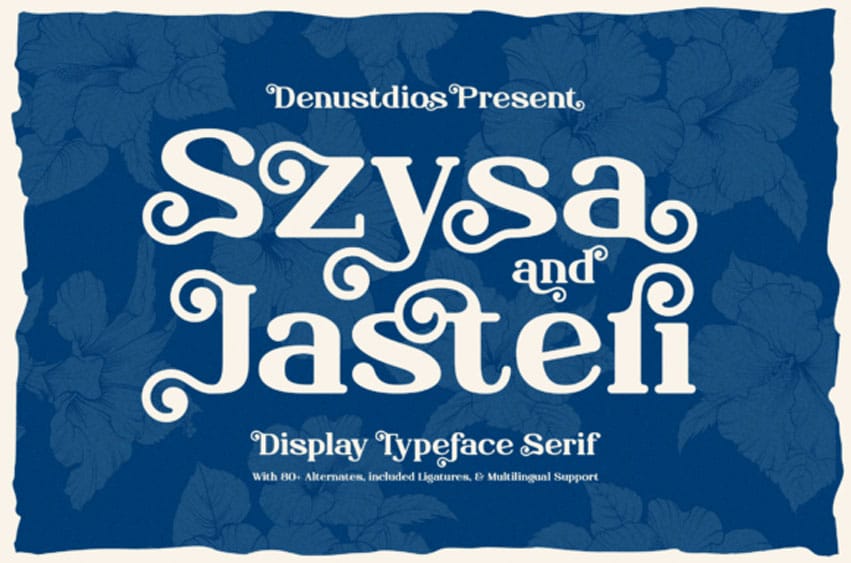
Szysa Jasteri Font is a bold and elegant serif display typeface.
Its stylish, sharp edges and artistic details make it perfect for logos, headlines, and eye-catching designs. This typeface stands out with its classic yet modern vibe, adding personality to any project.